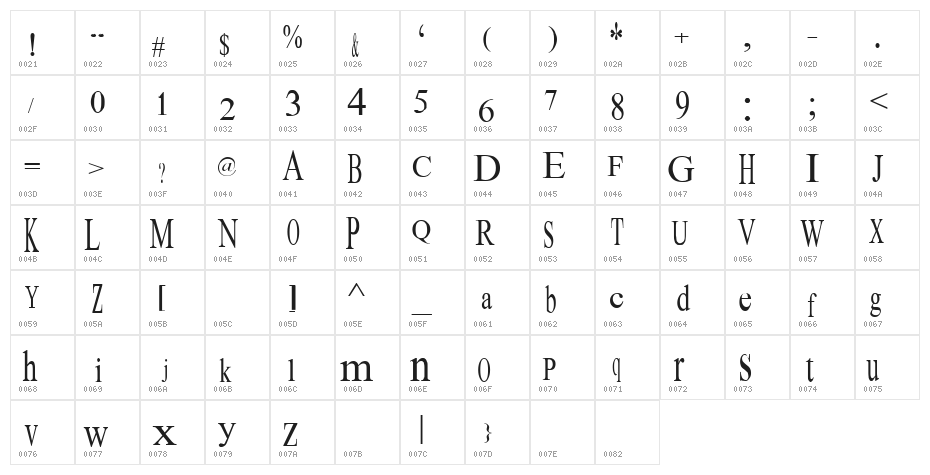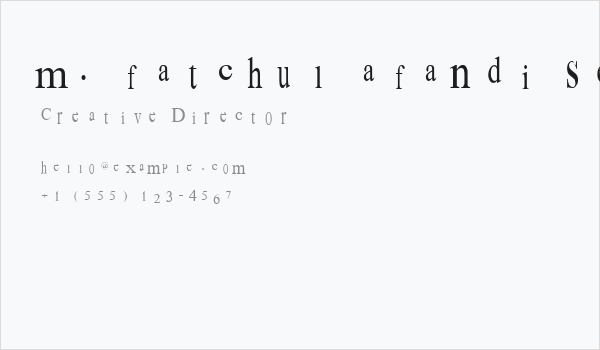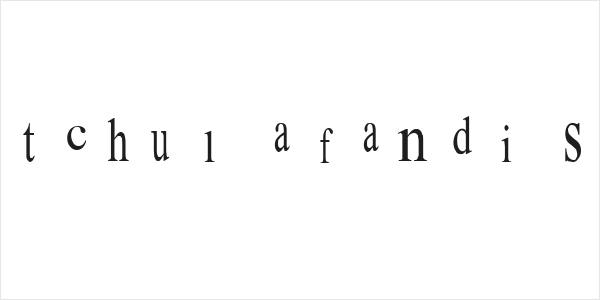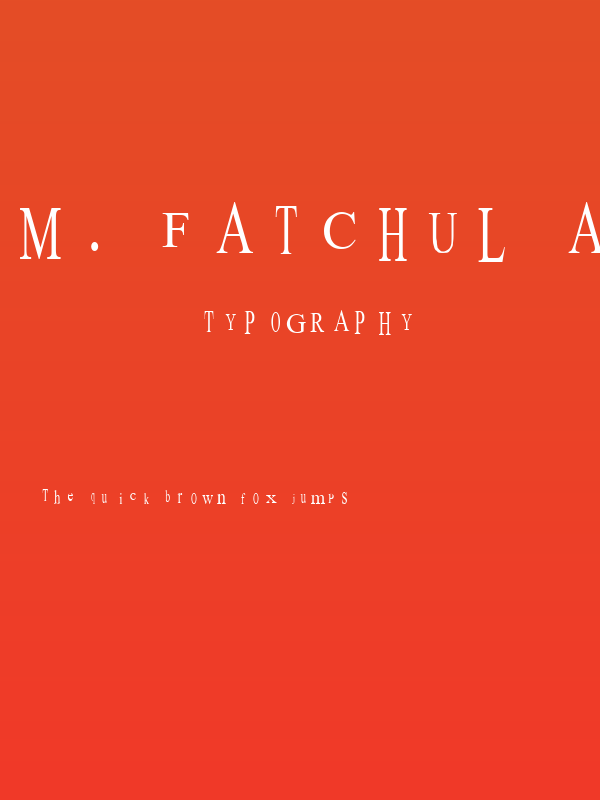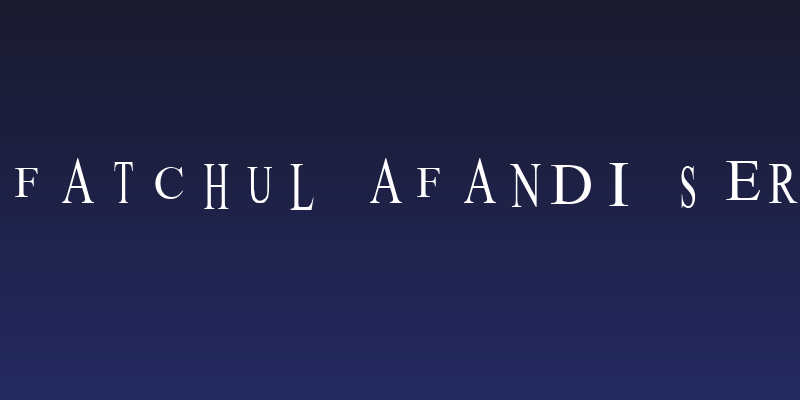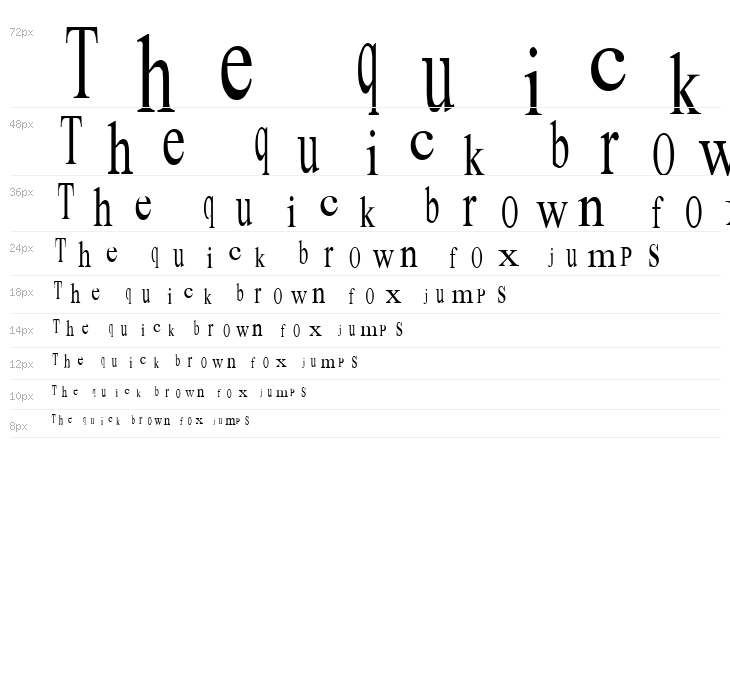
m. fatchul afandi serif Font
m. fatchul afandi serif Description
This font features a classic serif style with elegant and pronounced serifs that give it a sophisticated and timeless appearance. The uppercase letters are bold and commanding, while the lowercase letters maintain a refined and balanced look. The numerals are clear and distinct, making them easily readable. Special characters are designed with a touch of flair, adding to the font's overall charm. The font's design is suitable for both formal and creative applications, offering versatility in its use.
| Proposed Projects | Ideal for book covers, editorial design, branding, and formal invitations. |